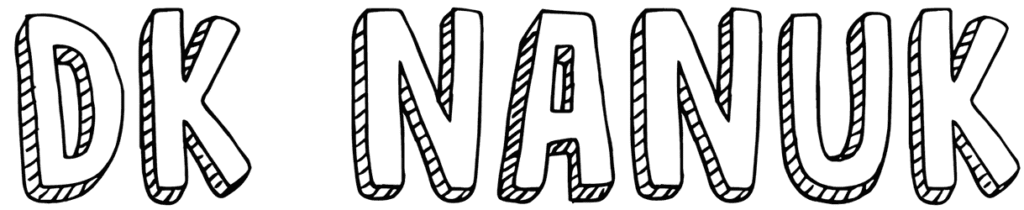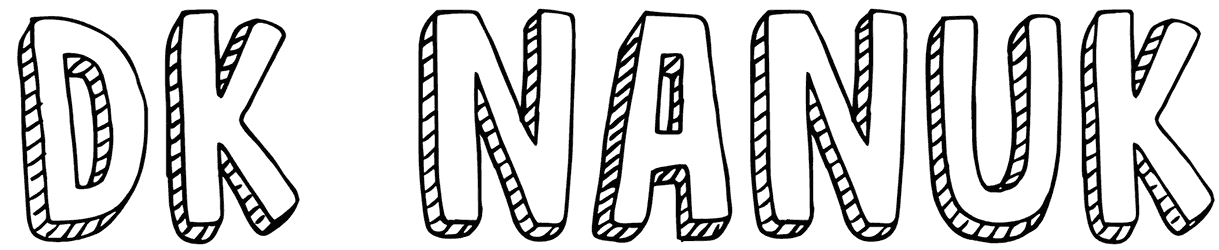
DK Nanuk Font
The hollow space inside with hatching shadows gives a friendly and childish mimic to DK Nanuk font. If you look for a way to teach the alphabet to children, this font could be an effective method for a coloring book.
Regarding the main usages of the 3D font, it is perfect for children-related logos like kindergartens, schools, shops, and packaging and drawing books alike. Although it does not support lowercase letters.